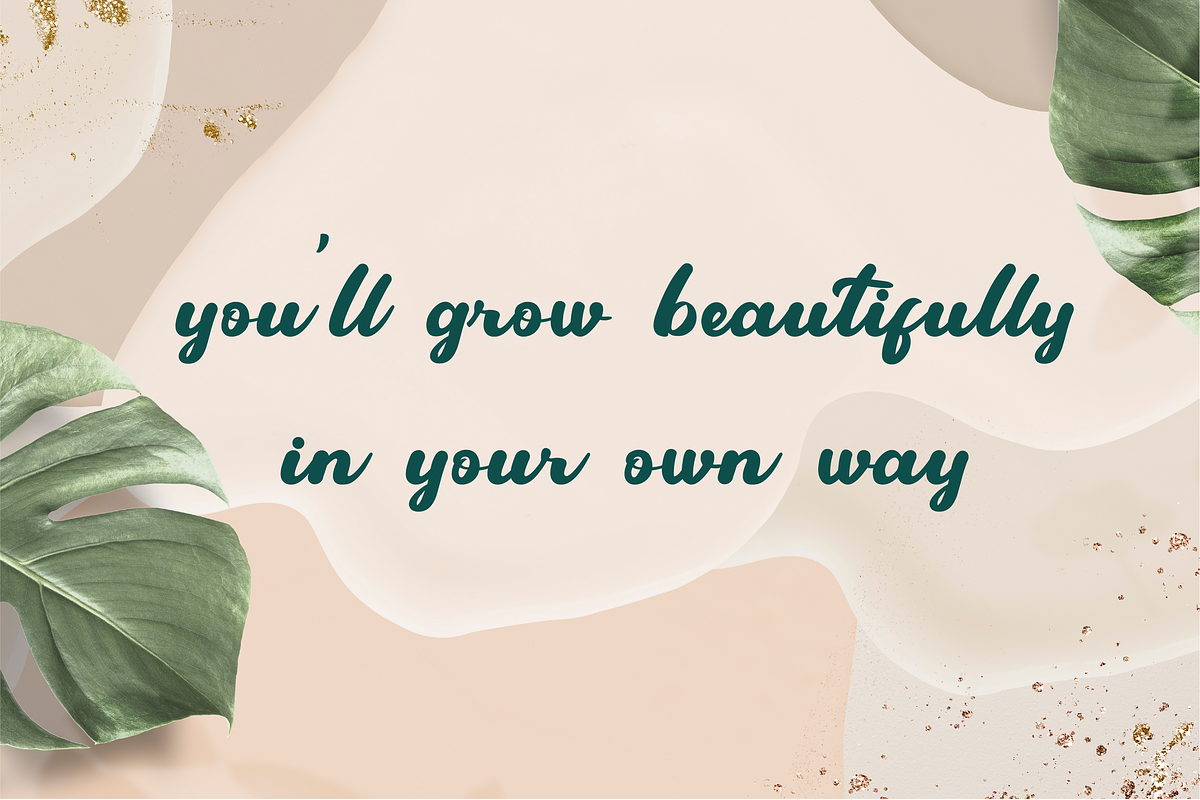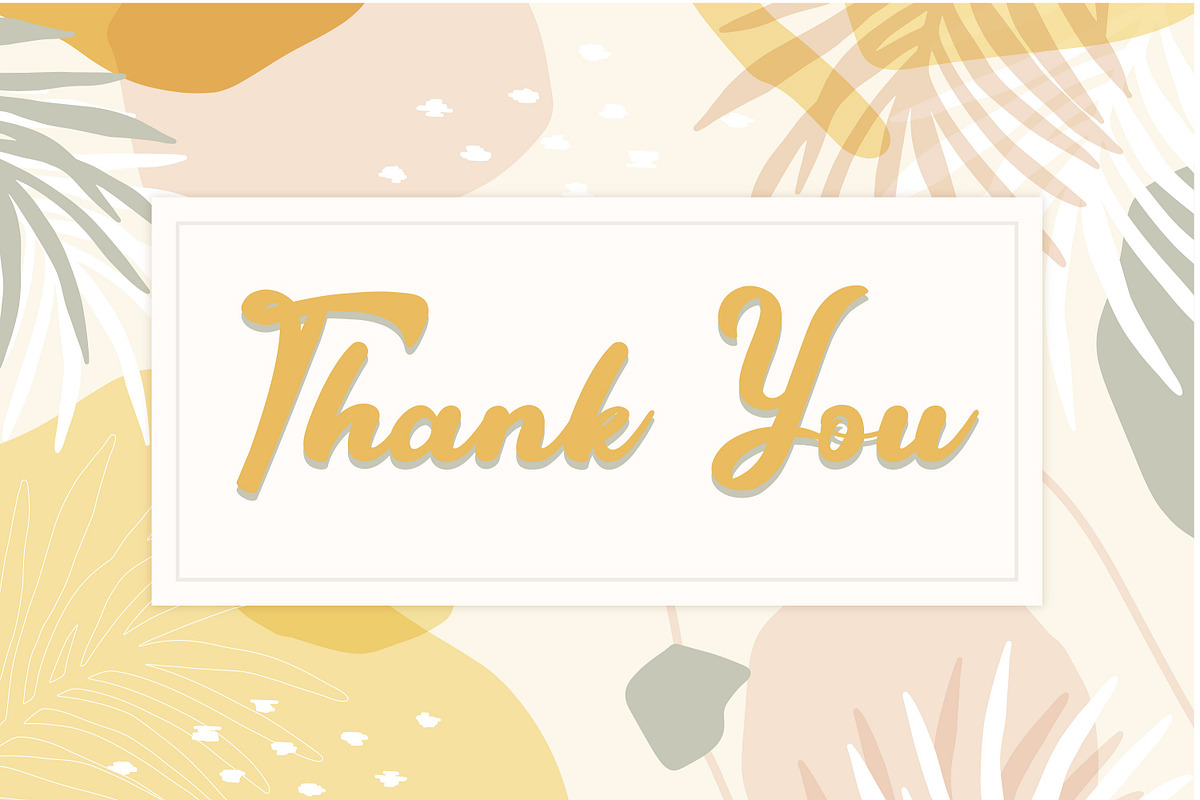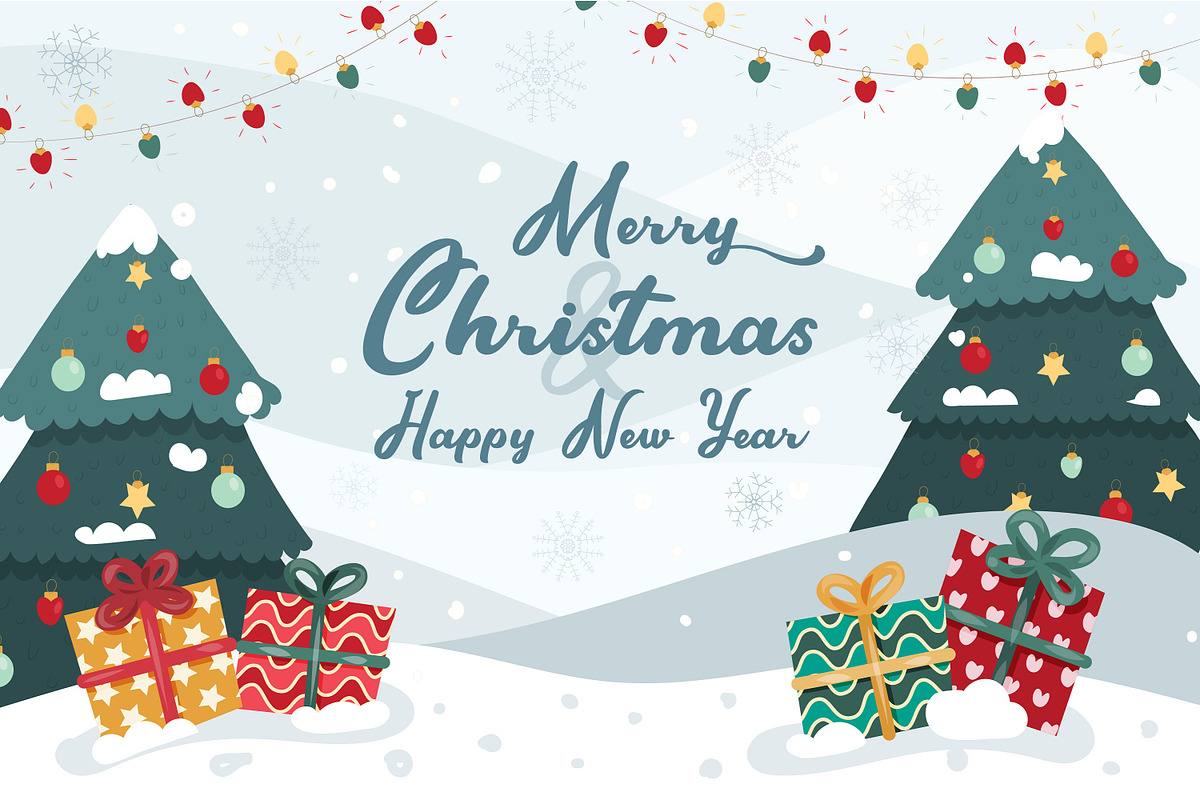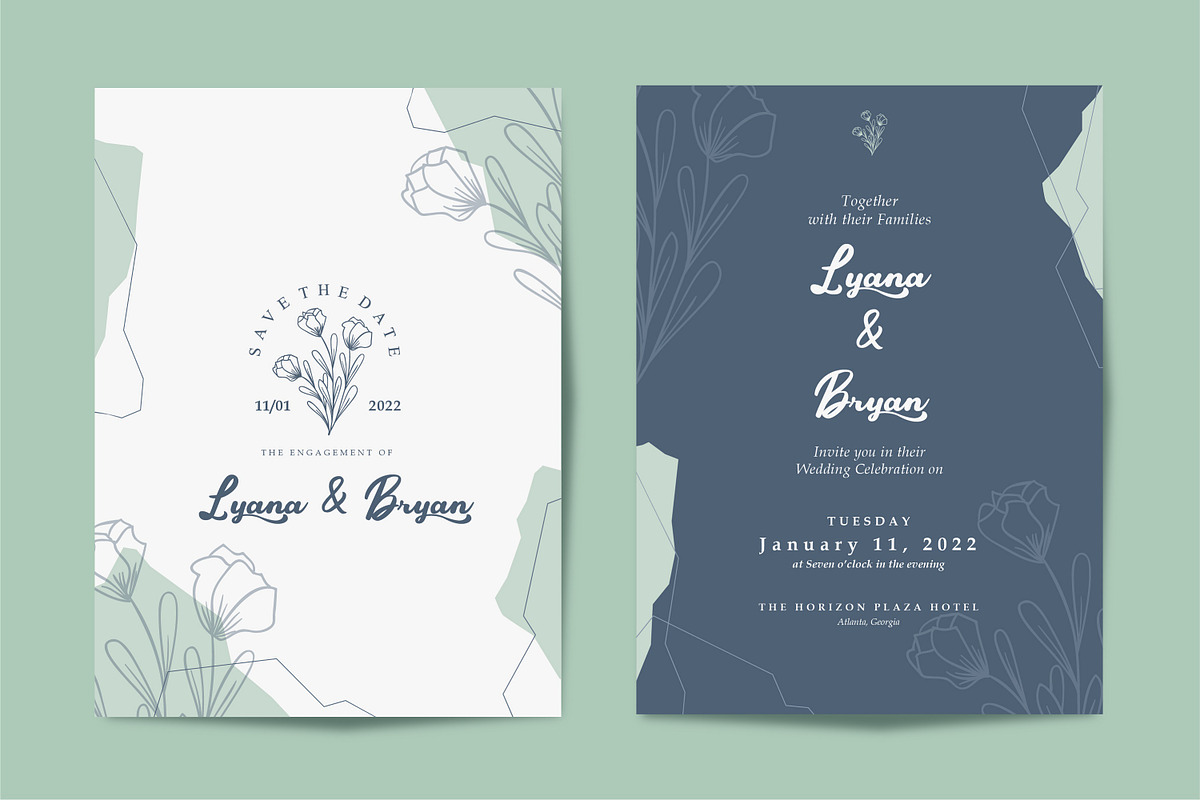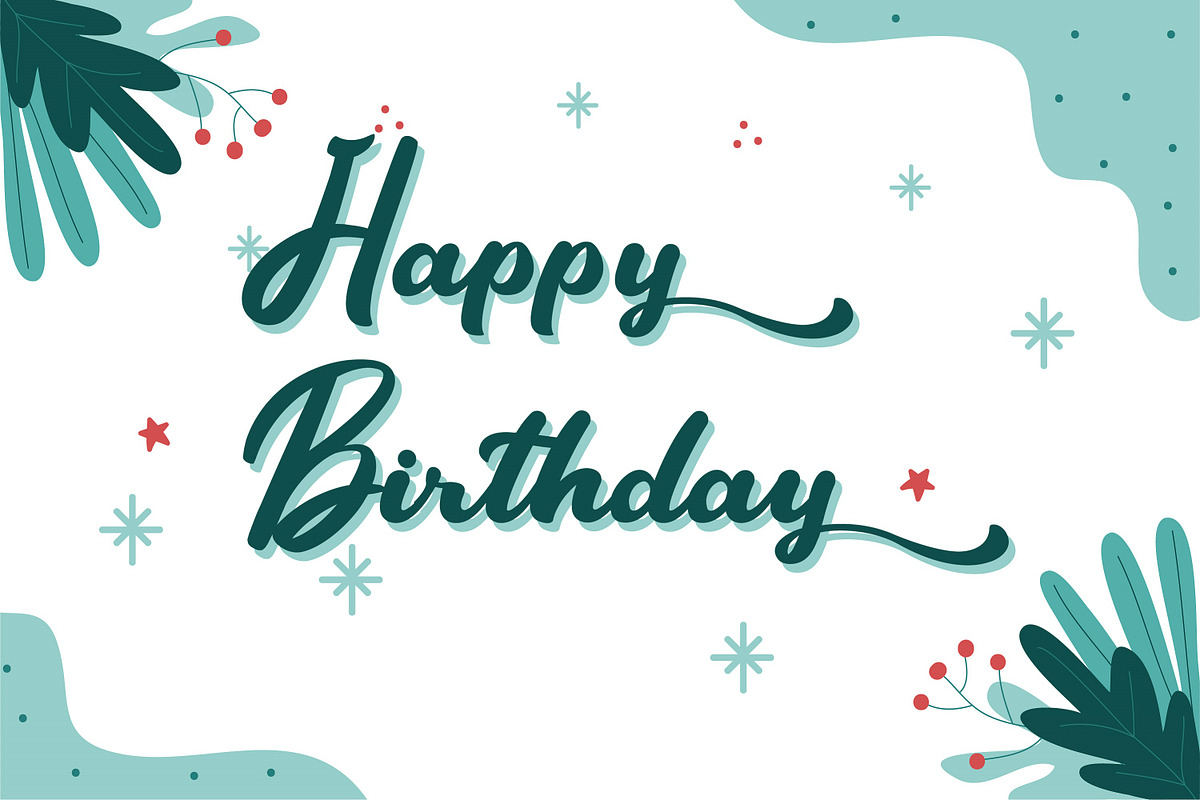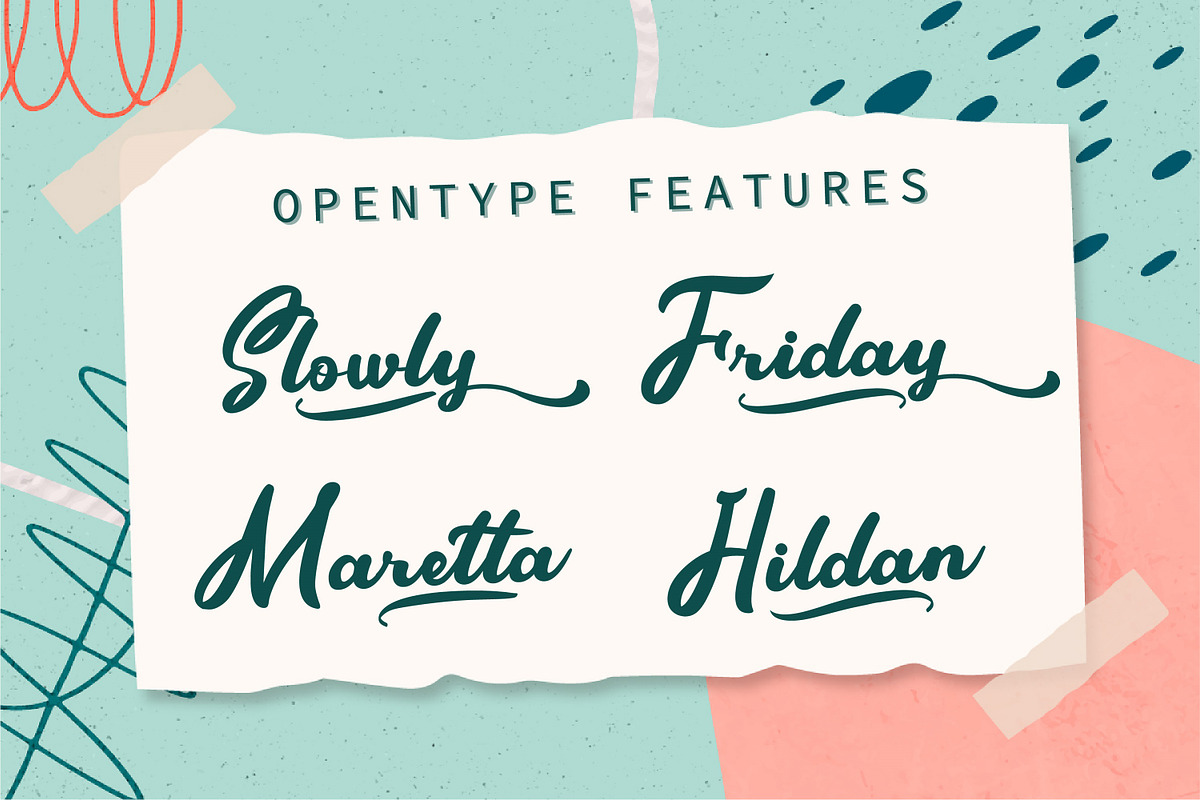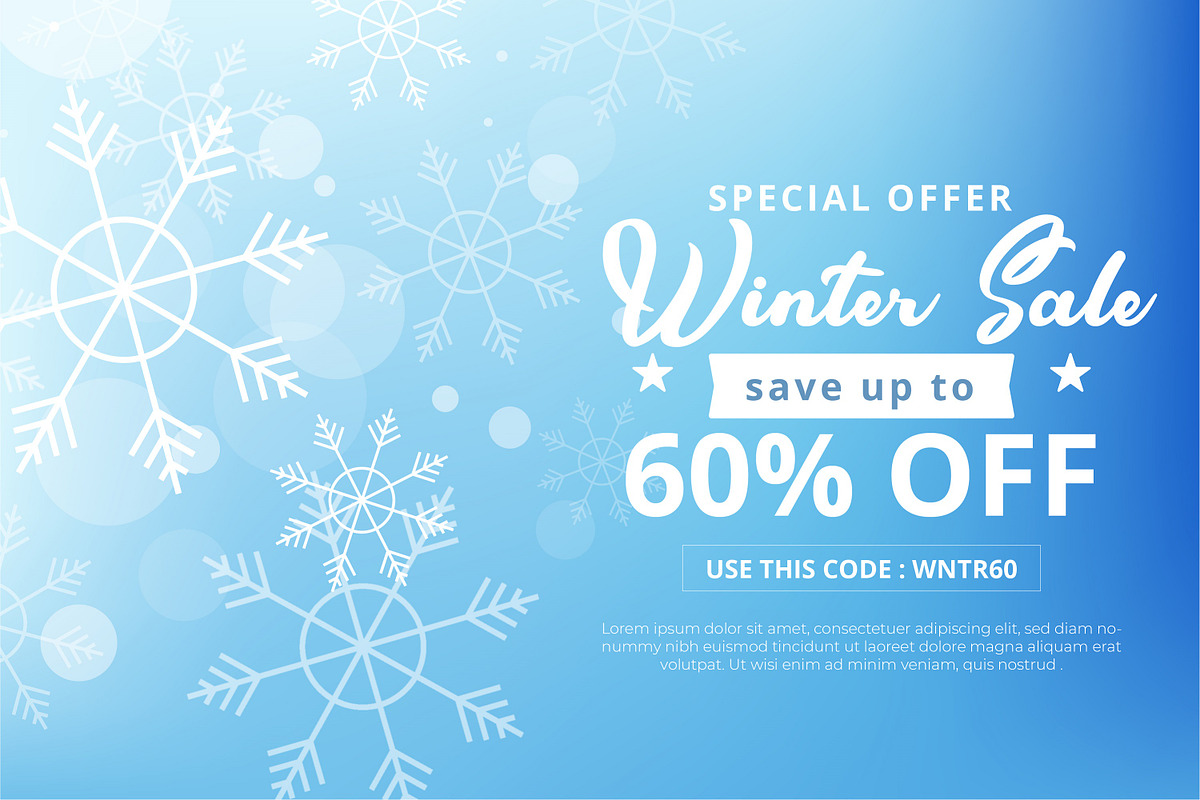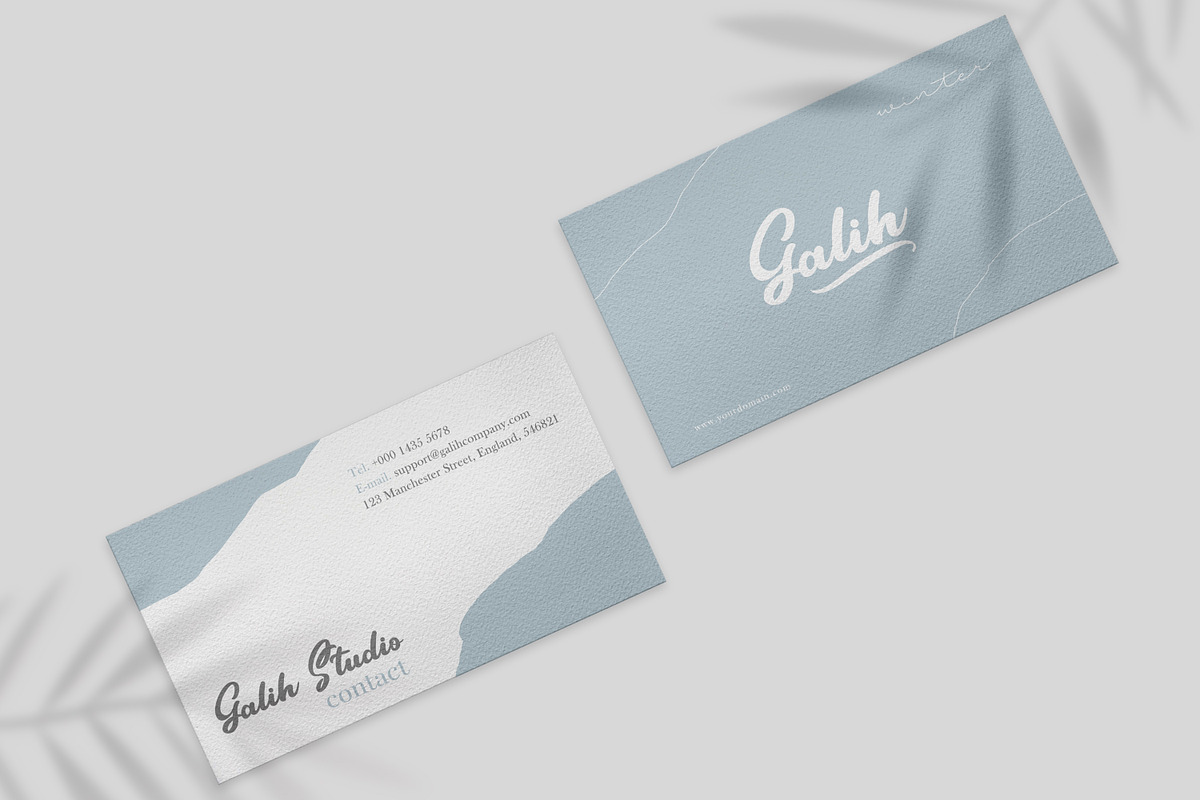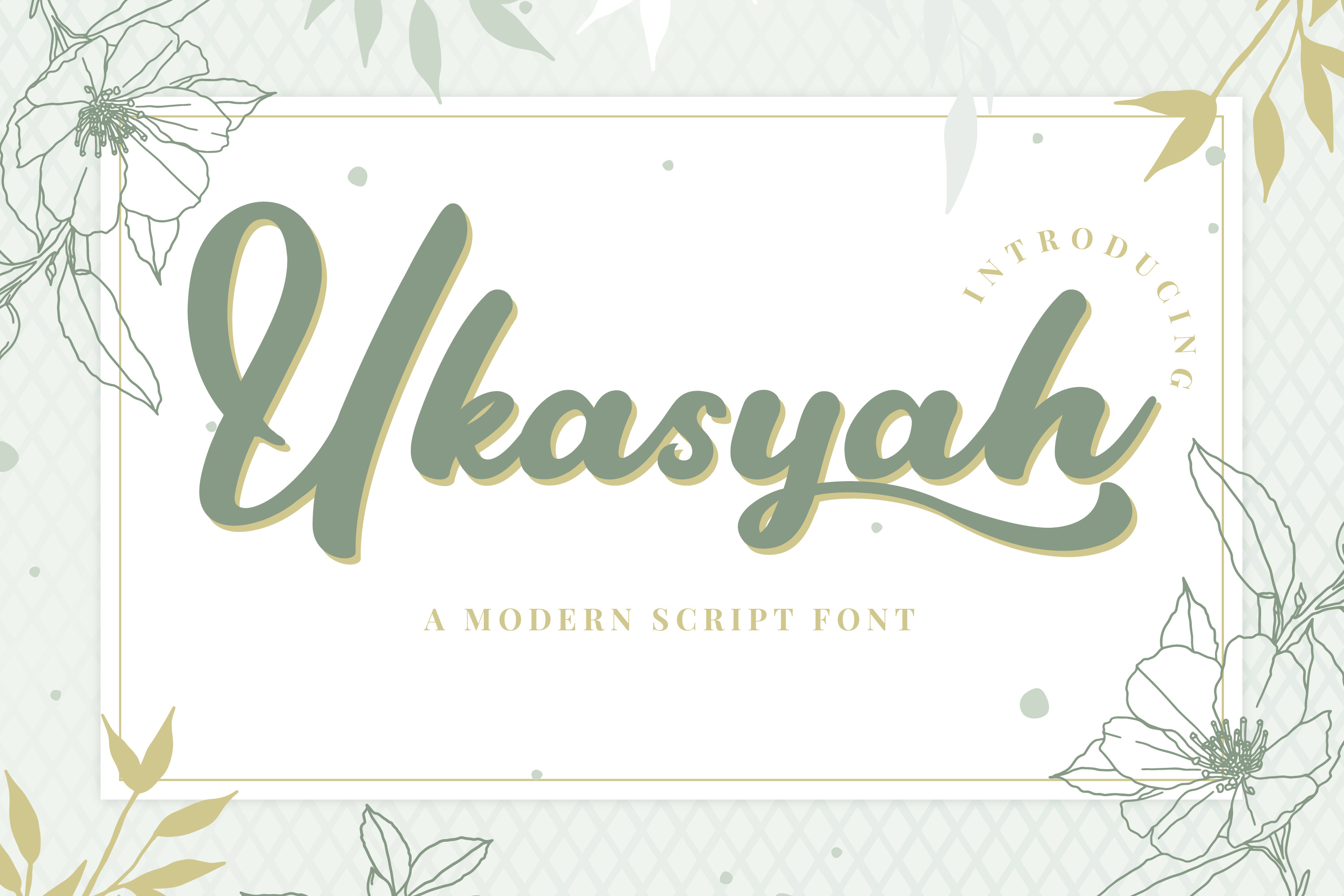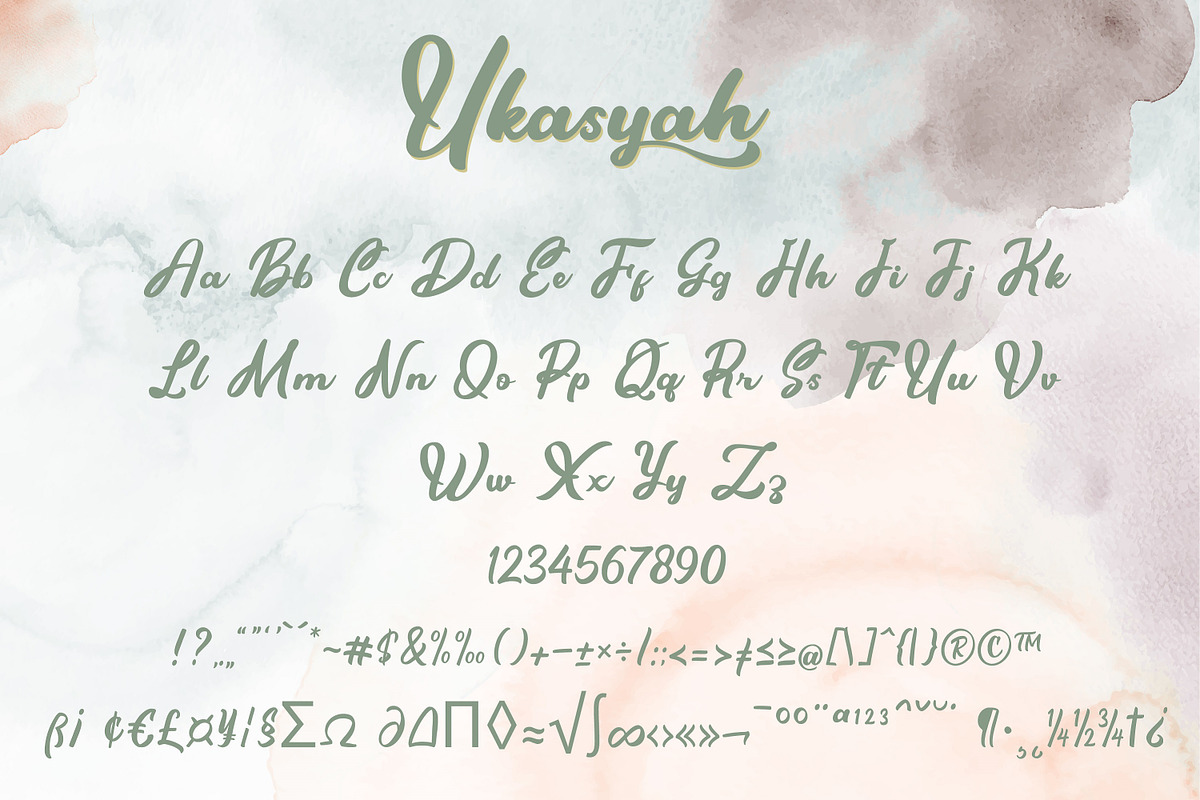
Ukasyah a Modern Calligraphy Font
Ukasyah is a Modern Calligraphy font that will give a beautiful impression to your designs
Ukasyah would perfect for photography, watermark, social media posts, quotes, logos & branding, invitation, product designs, label, stationery, wedding designs, product packaging, special events or anything that need handwriting taste.
- Ligature and Stylish Set